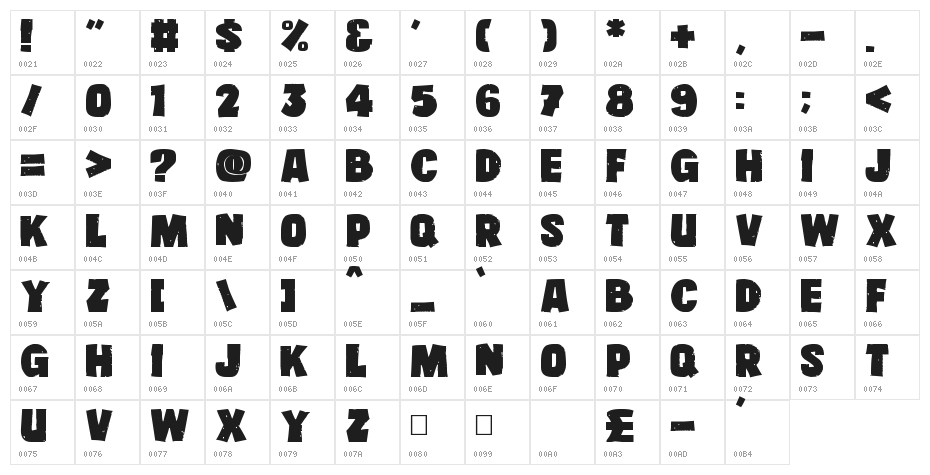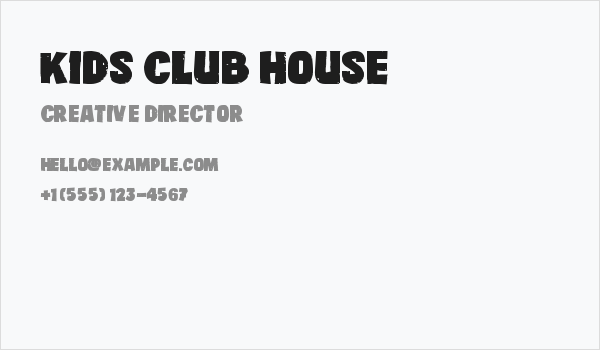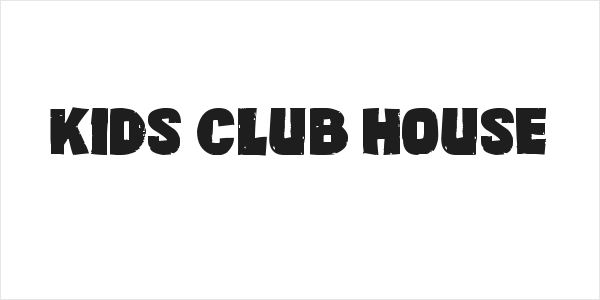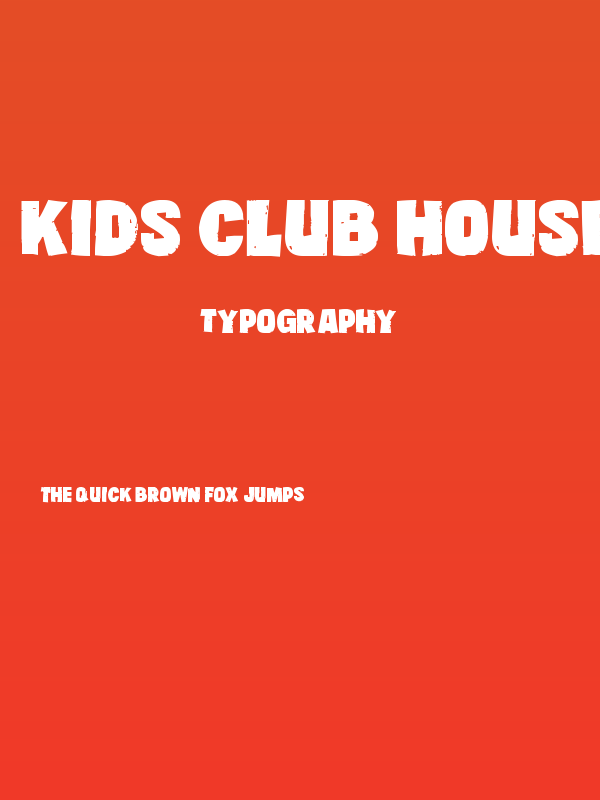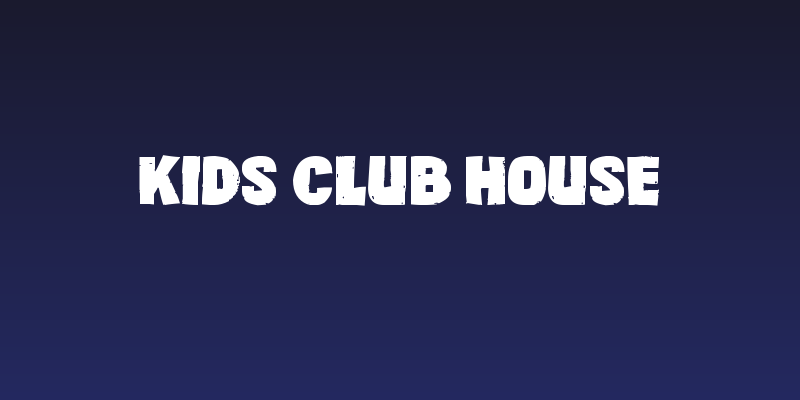
Kids Club House Font
Kids Club House Description
This font features a bold and playful design, characterized by its chunky, uneven strokes and distressed texture. The letters have a hand-cut appearance, giving them a rugged and energetic feel. The uppercase and lowercase letters maintain a consistent style, with exaggerated curves and angles that add to the dynamic look. Numbers and special characters are equally bold, ensuring a cohesive appearance across all elements. The font's unique style makes it stand out, perfect for projects that require a fun and lively aesthetic.
| Overall Style | Playful, Energetic, Rugged |
| Use Case | Headlines, Posters, Branding |
| Proposed Projects | Ideal for children's book covers, playful posters, event flyers, and branding for fun-oriented businesses. |